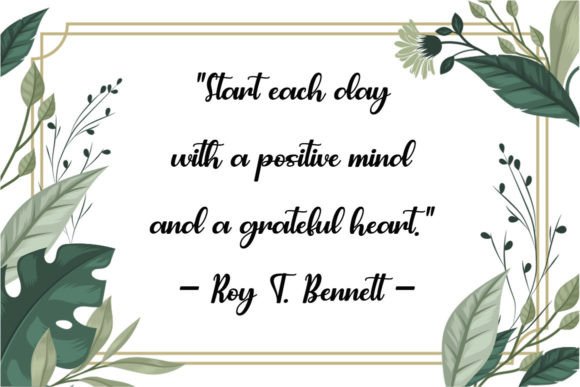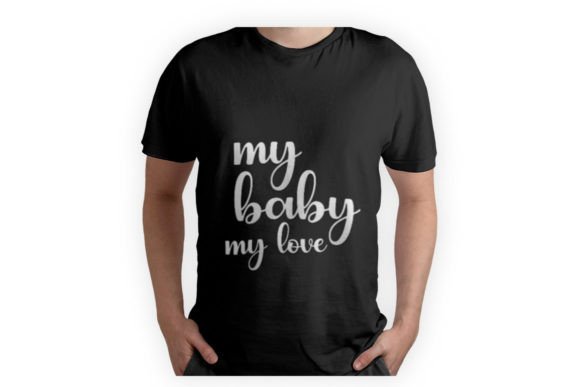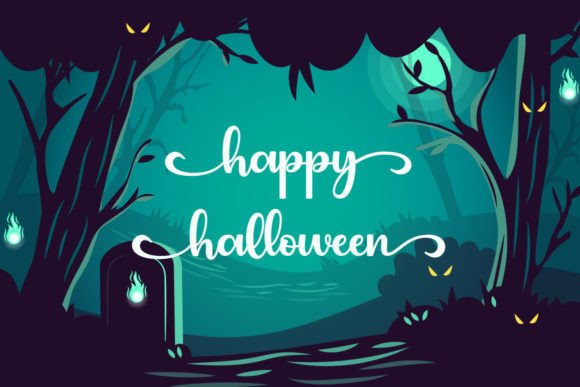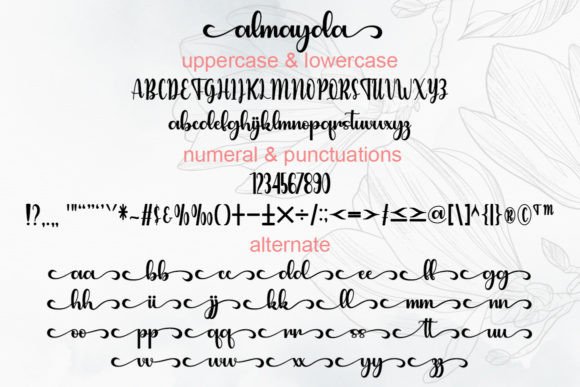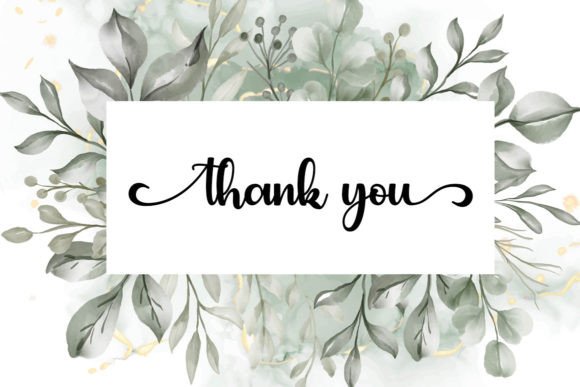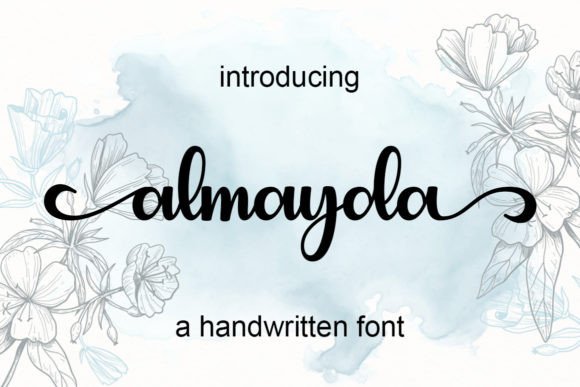
Introducing Almayda Font: The Enchanting Handwritten Font for Creative Projects
Are you looking for a font that can add a touch of elegance and sophistication to your designs? Look no further than Almayda Font, a beautiful handwritten font that is perfect for a wide range of creative projects. In this article, we’ll take a closer look at Almayda Font, its features, and how it can help take your designs to the next level.
What is Almayda Font?
Almayda Font is a stunning handwritten font that is designed to add a personal touch to your designs. Its elegant and flowing lines make it perfect for creating beautiful logos, branding materials, quotes, and more. Whether you’re a designer, crafty DIY enthusiast, or simply someone who loves to create, Almayda Font is a versatile and enchanting font that can help you achieve your creative goals.
Key Features of Almayda Font
So, what makes Almayda Font so special? Here are some of its key features:
- PUA Encoded: Almayda Font is PUA (Private Use Area) encoded, which means that you can access all of the glyphs and swashes with ease. This makes it easy to use and customize the font to suit your needs.
- Handwritten Style: Almayda Font has a beautiful handwritten style that is perfect for creating personal and unique designs.
- Versatile: Almayda Font can be used for a wide range of creative projects, including logos, branding, quotes, clothing, tote bags, business cards, websites, and more.
Almayda Font is perfect for designers and crafters who are looking for a font that can add a touch of elegance and sophistication to their designs. Whether you’re creating logos, branding materials, or simply crafting beautiful quotes and phrases, Almayda Font is a versatile and enchanting font that can help you achieve your creative goals.
Use Almayda Font for:
- Logos and Branding: Create beautiful logos and branding materials that stand out from the crowd.
- Quotes and Phrases: Add a touch of elegance and sophistication to your quotes and phrases.
- Clothing and Accessories: Use Almayda Font to create beautiful designs for clothing, tote bags, and other accessories.
- Business Cards and Stationery: Create professional-looking business cards and stationery that make a lasting impression.
- Websites and Blogs: Use Almayda Font to add a touch of elegance and sophistication to your website or blog.
Why Choose Almayda Font?
So, why choose Almayda Font over other fonts? Here are just a few reasons:
- Unique and Enchanting: Almayda Font has a unique and enchanting style that is sure to capture attention.
- Versatile: Almayda Font can be used for a wide range of creative projects.
- Easy to Use: Almayda Font is PUA encoded, making it easy to access all of the glyphs and swashes.
In conclusion, Almayda Font is a beautiful and enchanting handwritten font that is perfect for designers and crafters who are looking for a font that can add a touch of elegance and sophistication to their designs. With its PUA encoded feature, versatile style, and ease of use, Almayda Font is a must-have font for any creative project. So, fall in love with Almayda Font and let it take your projects to the highest level!